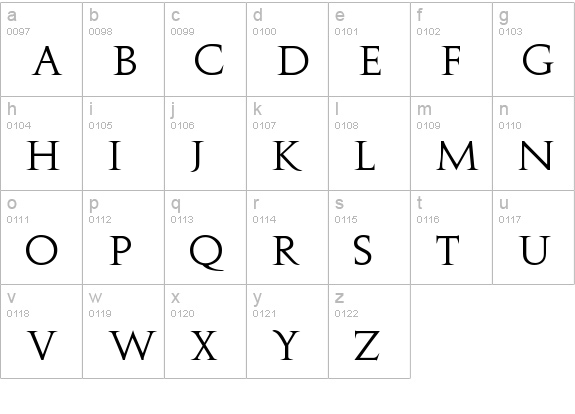
Aurea Regular Font Details
Aurea Regular is the standard, neutral variant in the Aurea typeface family \xE2\x80\x94 well suited to general body text, paragraphs, and standard typographic work.
Aurea Regular font is a classic and elegant typeface that exudes sophistication and charm. Its timeless design makes it a versatile choice for a wide range of design projects, from branding to editorial work. The clean lines and balanced proportions of Aurea Regular give it a polished and professional look that is both modern and traditional. What sets Aurea Regular apart is its versatility and readability, making it suitable for both digital and print applications. Whether you're designing a website, creating a logo, or laying out a brochure, Aurea Regular will bring a touch of class to your project. The best part is that Aurea Regular is available for free download at FontsMarket.com. So, you can add this beautiful typeface to your collection without breaking the bank. Don't miss out on the opportunity to enhance your designs with Aurea Regular's timeless beauty and sophistication. Download it today and elevate your projects with this stunning font.